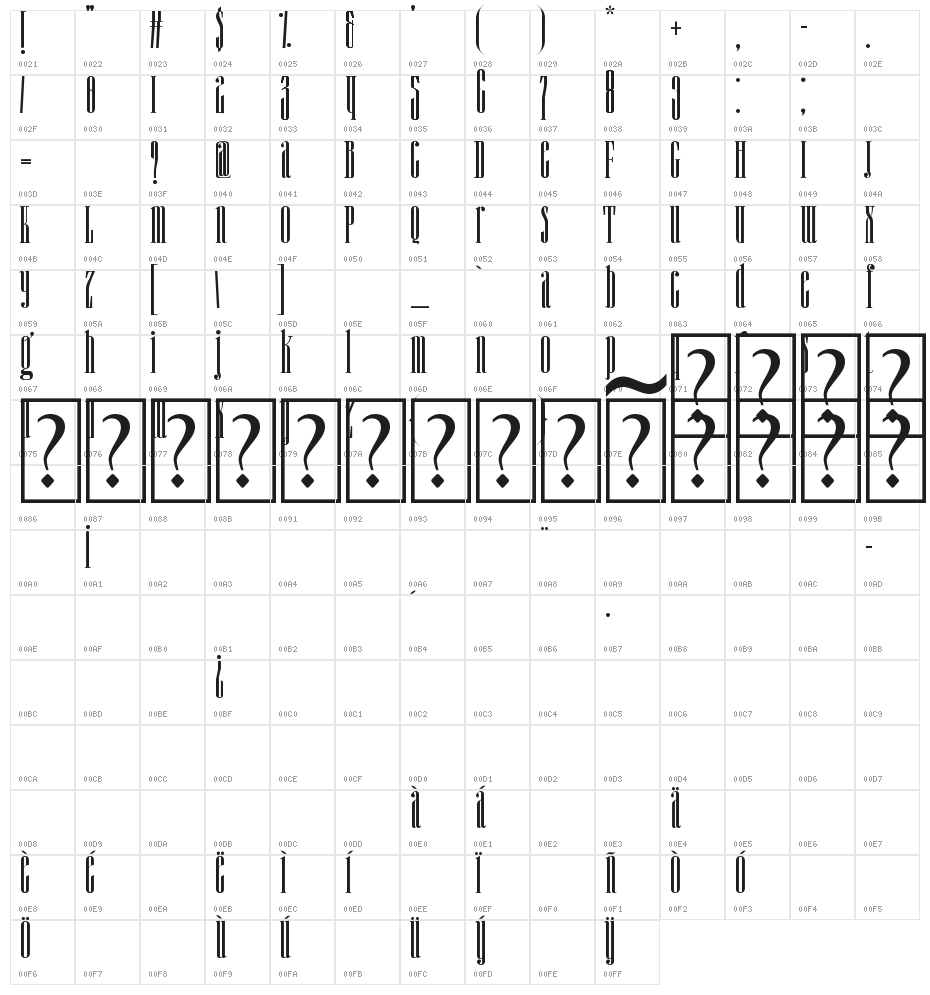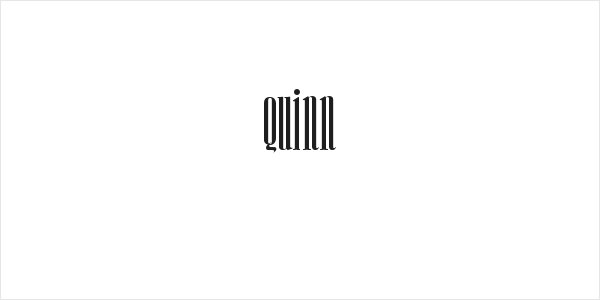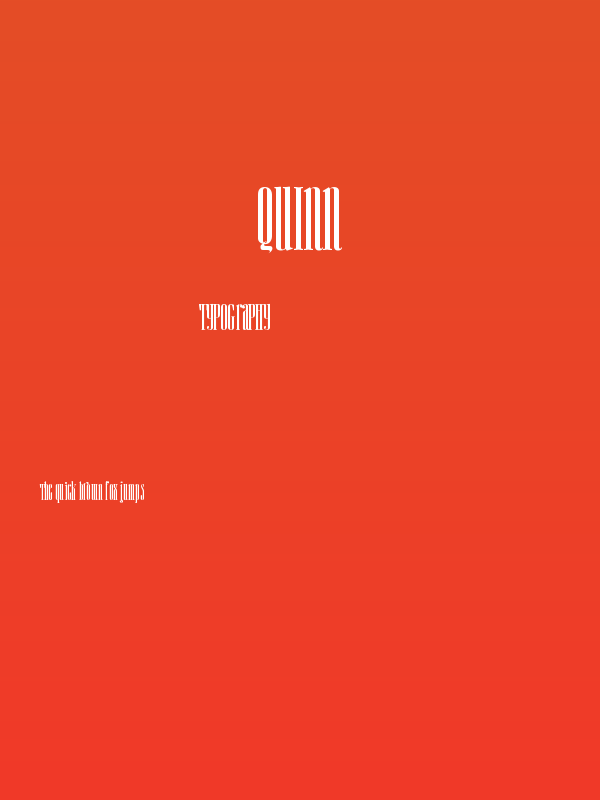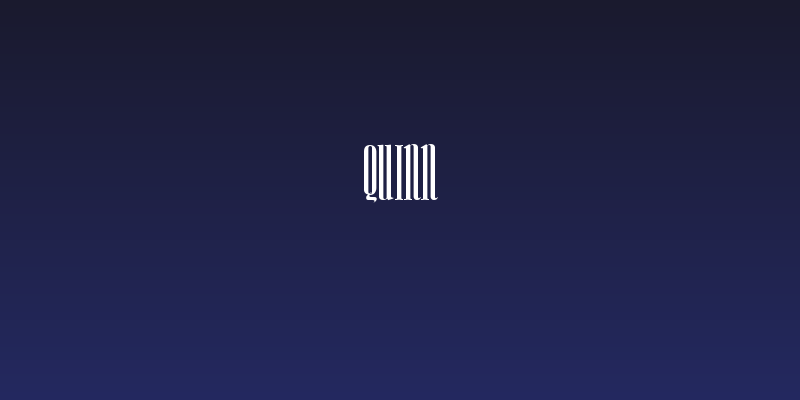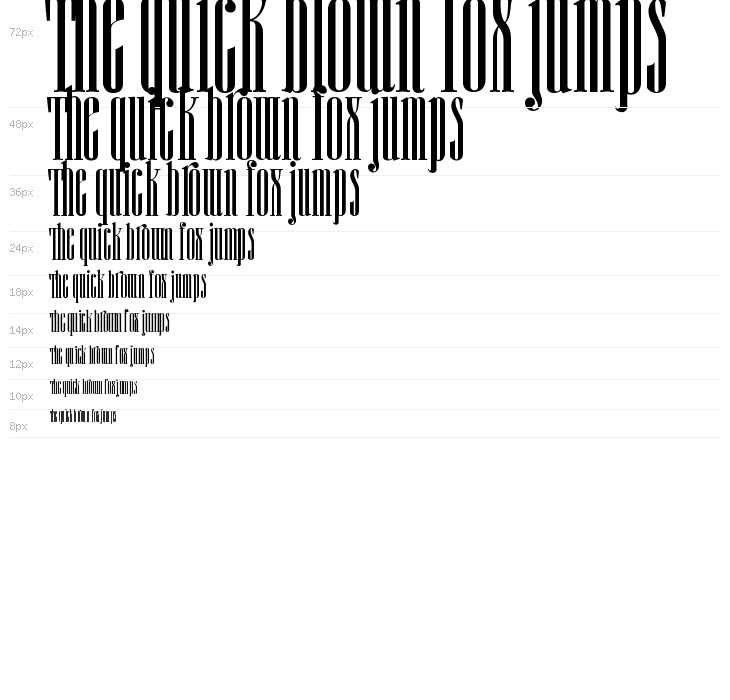
Quinn Font
Quinn Description
This font features an ultra-condensed and elongated design, characterized by its tall, narrow letterforms. The vertical emphasis is pronounced, with minimal spacing between characters, creating a striking and impactful visual presence. The font's high contrast in stroke thickness adds to its dramatic appearance, with thick vertical lines and thin horizontal elements. The overall style is modern and avant-garde, making it suitable for attention-grabbing headlines and artistic projects. Its unique structure may limit readability in smaller sizes, but it excels in creating a bold statement.
| Proposed Projects | Ideal for magazine covers, posters, branding, and artistic projects where a bold statement is needed. |